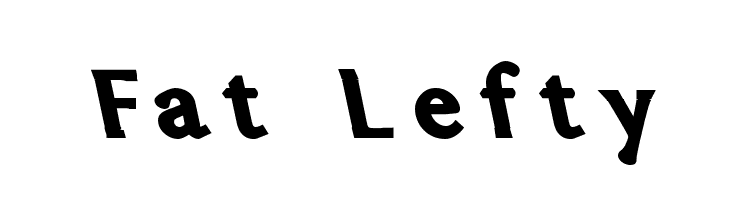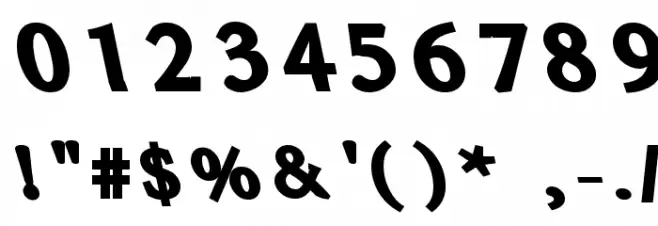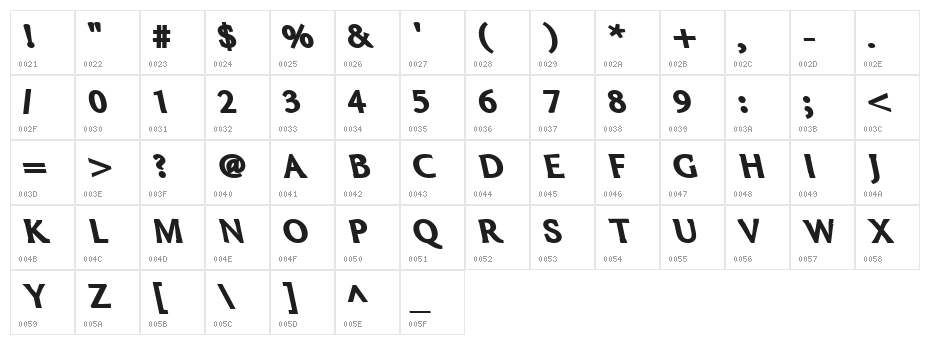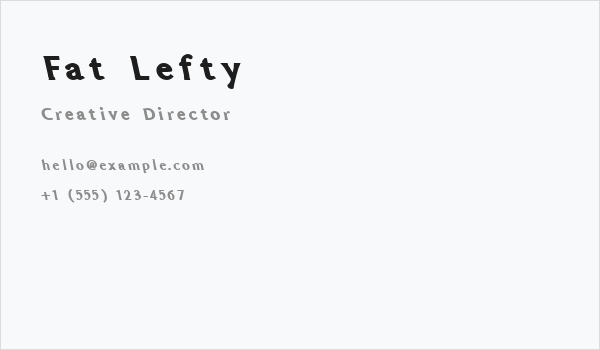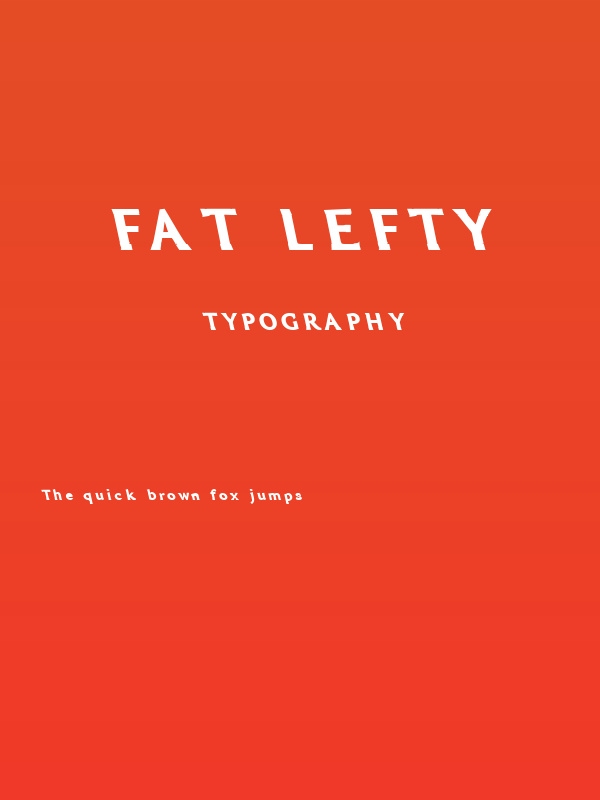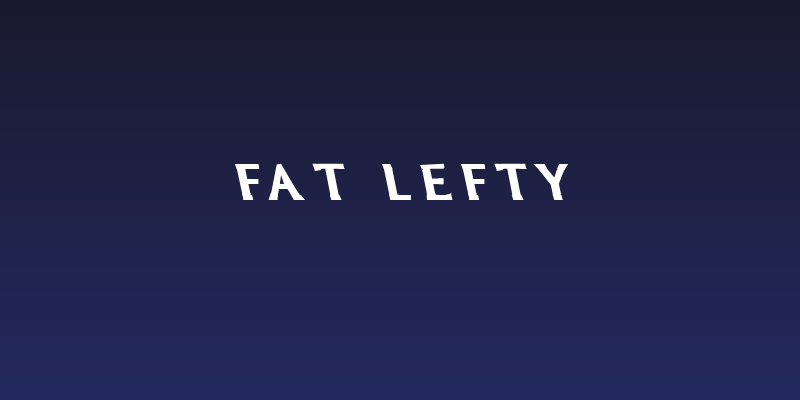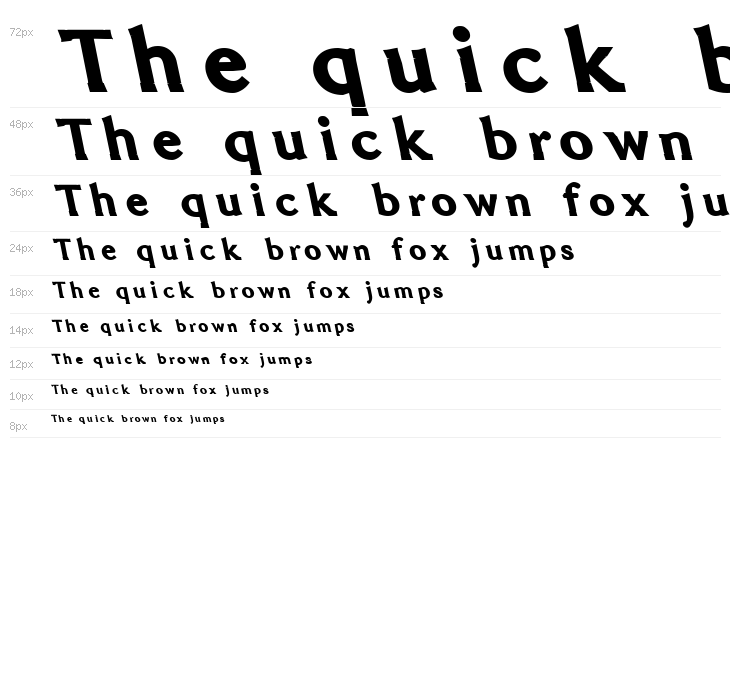
Fat Lefty Font
Fat Lefty Description
This font features a bold and playful style with a slightly slanted orientation, giving it a dynamic and energetic appearance. The characters are thick and robust, with rounded edges that soften the overall look. The uppercase letters maintain a consistent height, while the lowercase letters exhibit a slight variation in size, adding to the font's whimsical nature. The numerals are equally bold, ensuring readability and impact. Special characters are well-integrated, maintaining the font's cohesive style. This font's unique personality makes it suitable for creative and informal applications.
| Overall Style | Playful, Energetic |
| Proposed Projects | Ideal for children's books, playful branding, posters, and creative projects. |